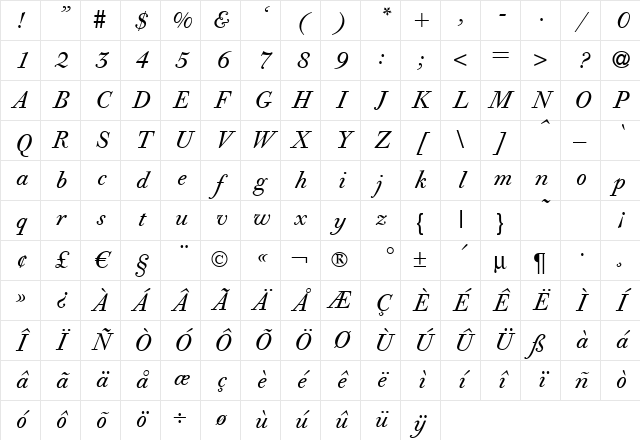
Giambattista Italic
Giambattista Family
Giambattista Italic
Design Context for Giambattista
Giambattista is a composed and adaptable typeface that performs quietly and consistently across a wide range of design contexts. The slanted form adds forward momentum and visual energy.
Pro Tip: Use Giambattista for emphasis, pull quotes, and subheadings where its slanted energy can add rhythm to the layout.